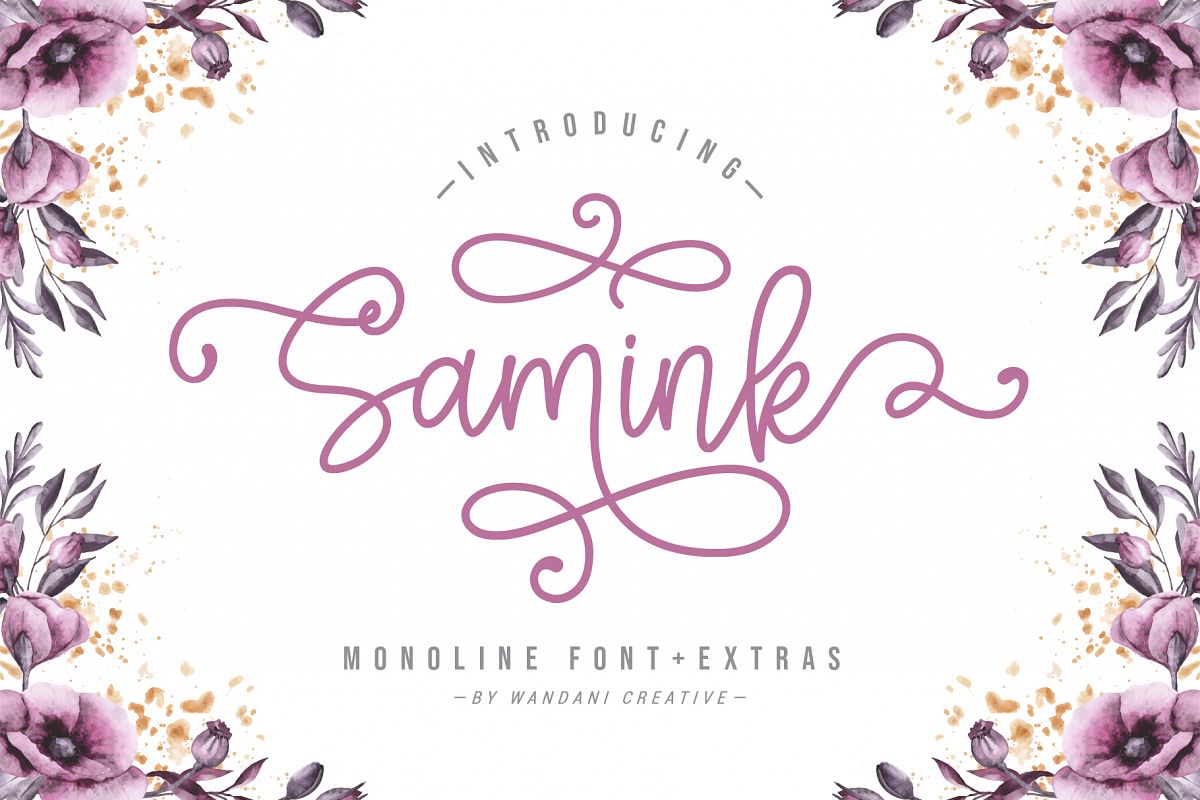
Samink Monoline font & Extras
Samink
Samink monoline font is for any typography needed, designed to combine perfectly and allow you to create stunning hand-lettering quickly and easily. Ideal for logos, handwritten quotes, product packaging, header, poster, merchandise, social media & greeting cards, and more.
Samink Font comes with +500 glyphs (Alternate & Ligature). The alternative characters were divided into several Open Type features such as Swash, Stylistic Sets, Stylistic Alternates, Contextual Alternates. The Open Type features can be accessed by using Open Type programs such as Adobe Illustrator, Adobe InDesign, Adobe Photoshop Corel Draw X version, And Microsoft Word. And this Font has given PUA Unicode (specially coded fonts). so that all the alternate characters can easily be accessed in full by a craftsman or designer.
Main Feature:
• Stylistic Alternates ( ss01 - ss10)
• Number
• Punctuation
• International Language
• Symbols Support
• PUA Unicode
• and more
• Extras